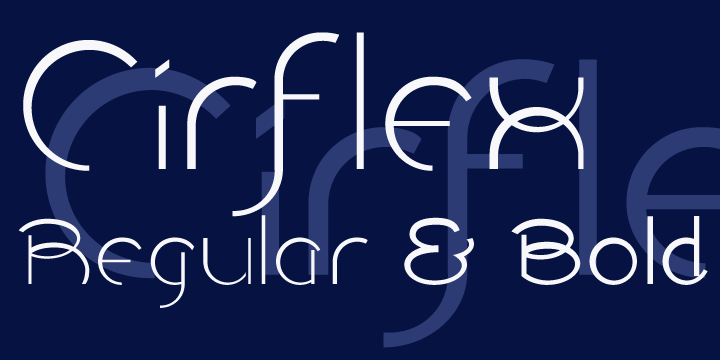
Cirflex was inspired by a 1930s shop sign, and makes an ideal typeface for Streamline Era and Art Deco design. Cirflex is offered in regular and bold weights.